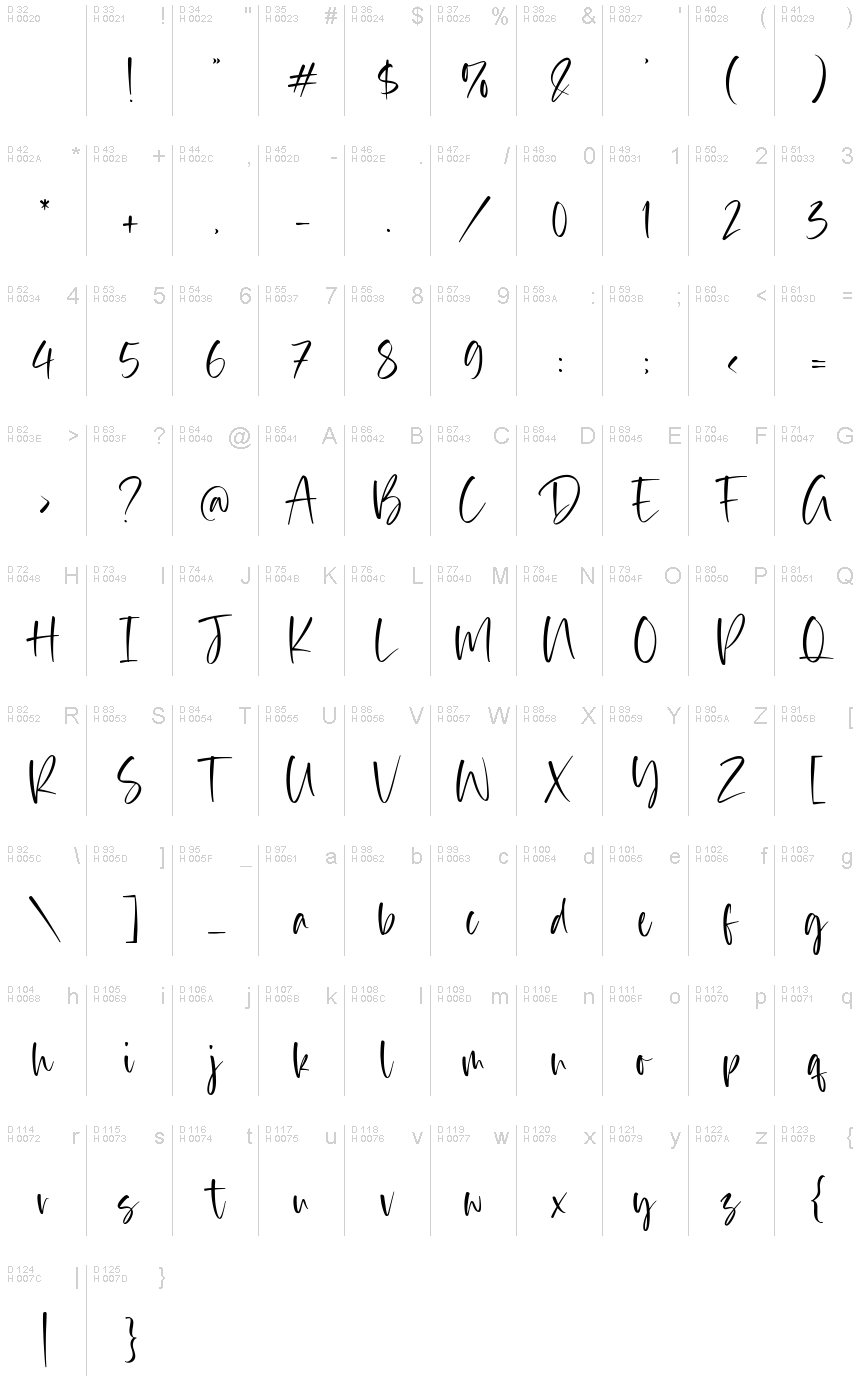
Rustic Homes
Rustic Homes, crafted by Timur Type, exudes a charm that is reminiscent of a personal touch with its handwritten, signature style. This font captures the essence of an artisan's hand, bringing a warm and inviting feel to any project it graces. With its elegant strokes and distinctive flow, Rustic Homes conveys a sense of individuality and authenticity that can make text appear as though penned by hand.
Ideal for branding projects, invitations, and personalized goods, this font lends itself beautifully to designs requiring an intimate and bespoke aesthetic. Whether creating logos that resonate with uniqueness or crafting messages that require a heartfelt touch, Rustic Homes offers designers the ease of digital typography with the beauty of handcrafted artistry.